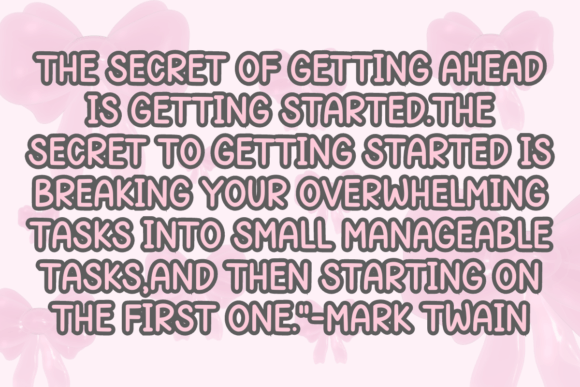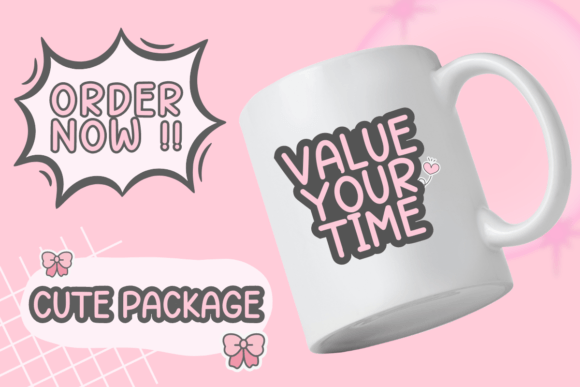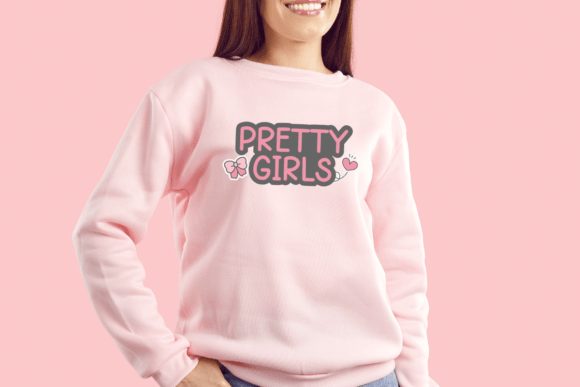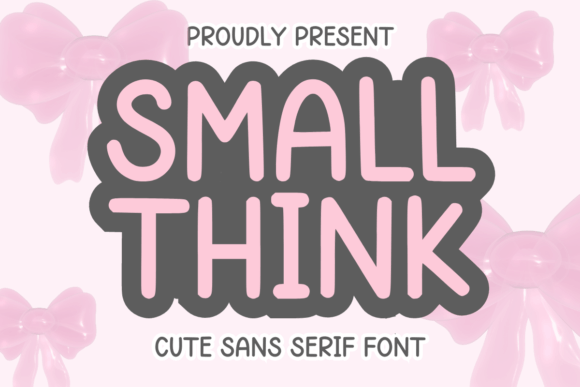
Introduction to Small Think Font
Small Think is a cute and adorable handwritten font.
cute and fun style This font is very fun with natural strokes and touches.
Small Think Font offers exceptional quality and versatility, making it a valuable addition to your design toolkit. Whether you’re creating for personal projects or commercial use, Small Think Font delivers professional results.